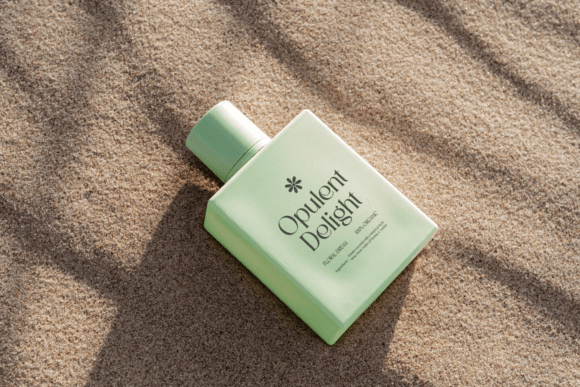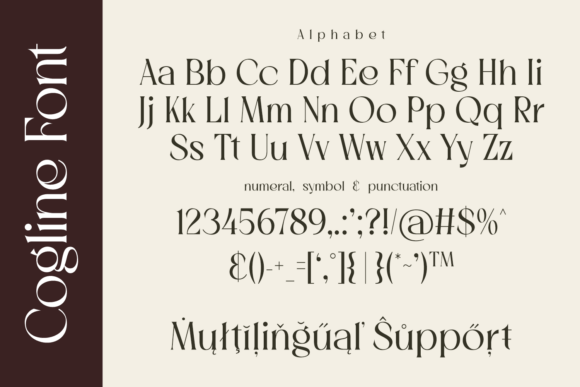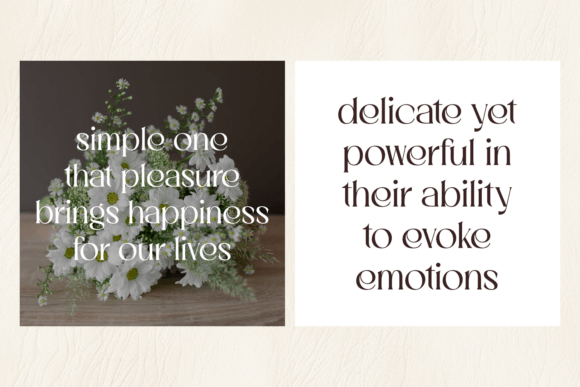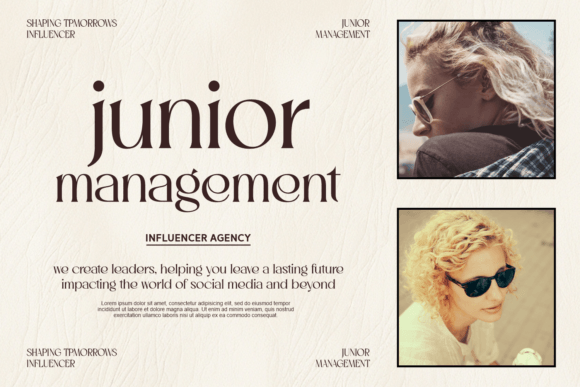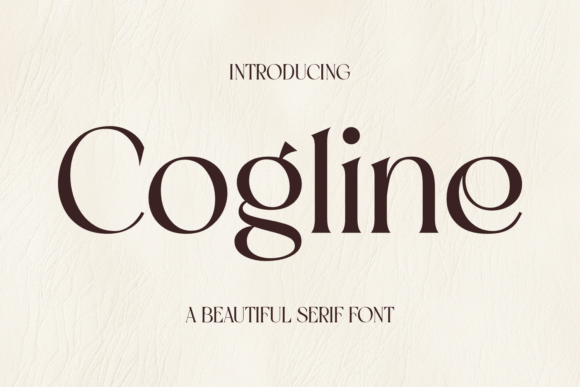
Cogline Font: Elevate Your Design with Elegance and Sophistication
In the world of typography, fonts play a crucial role in conveying the tone and personality of a brand, product, or service. For designers and crafters seeking to add a touch of luxury and elegance to their projects, Cogline Font is an excellent choice. This elegant serif font seamlessly blends classic sophistication with modern refinement, making it perfect for a wide range of applications, from branding and invitations to editorial design.
The Essence of Cogline Font
Cogline Font is characterized by its graceful curves and sharp serifs, which work in harmony to create a timeless and sophisticated aesthetic. The font’s classic roots are evident in its traditional serif structure, while its modern twist lies in its refined lines and subtle nuances. This blend of old and new makes Cogline an versatile font that can be used in various contexts, from traditional print materials to digital platforms.
Key Features of Cogline Font
- Elegant Serif Design: Cogline’s serif design adds a touch of sophistication and elegance to any project, making it perfect for high-end branding, luxury packaging, and editorial design.
- Exceptional Readability: The font’s clear and refined lines ensure exceptional readability, even at small sizes, making it suitable for body text and captions.
- Timeless Style: Cogline’s classic design ensures that it will remain relevant for years to come, making it a valuable addition to any design library.
- Versatility: Cogline can be used in a wide range of applications, from print materials like business cards, invitations, and brochures, to digital platforms like websites, social media, and advertising.
Applications of Cogline Font
Cogline Font is an excellent choice for various design projects, including:
- Branding: Use Cogline to create a sophisticated and elegant brand identity that exudes luxury and refinement.
- Invitations: Add a touch of elegance to your invitations, whether it’s a wedding, birthday, or corporate event.
- Editorial Design: Use Cogline to create visually stunning editorial content, such as magazines, newspapers, and blogs.
- Packaging: Elevate your packaging design with Cogline’s sophisticated and elegant aesthetic.
Tips for Using Cogline Font
To get the most out of Cogline Font, consider the following tips:
- Pair with contrasting fonts: Combine Cogline with sans-serif fonts or script fonts to create visual interest and contrast.
- Experiment with font sizes: Use Cogline in various font sizes to create hierarchy and emphasis in your design.
- Pay attention to line spacing: Ensure that your text has sufficient line spacing to maintain readability and flow.
Cogline Font is an elegant serif font that offers a perfect blend of classic sophistication and modern refinement. Its exceptional readability, timeless style, and versatility make it an excellent choice for designers and crafters seeking to add a touch of luxury and elegance to their projects. Whether you’re working on branding, invitations, editorial design, or packaging, Cogline Font is sure to elevate your design to the next level.